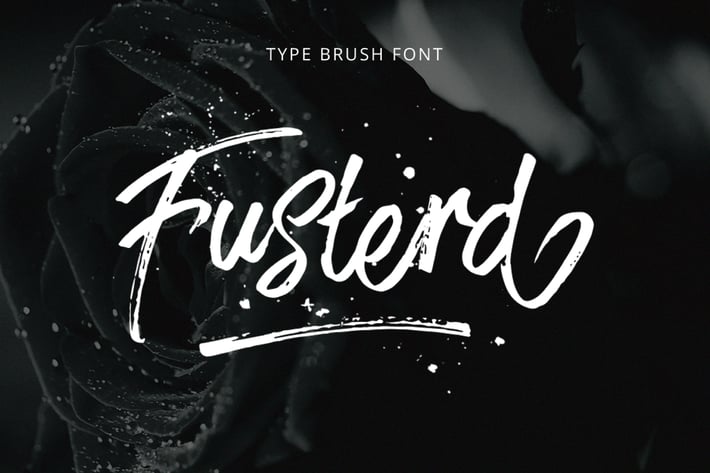
Fusterd Font
Introducing a lovingly handmade new typeface, Fusterd Font, a fun and imperfect modern brushed script font with a tough of uniqueness driven. Design like a professional with this typeface that fits perfectly for your wedding invitations, street ads, Instagram posts, t-shirt design, branding, and much more.